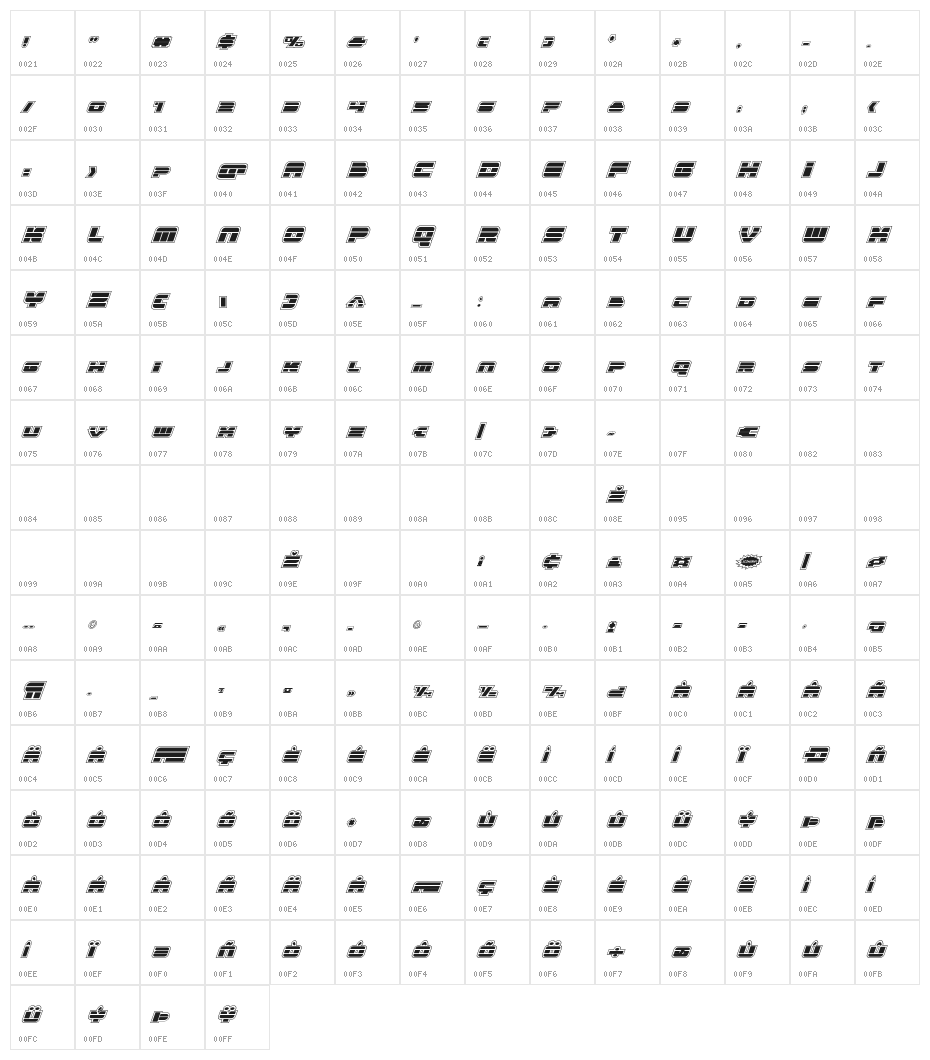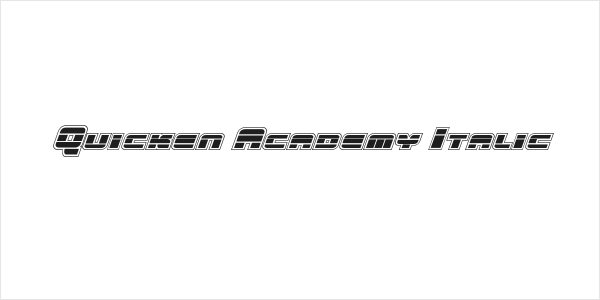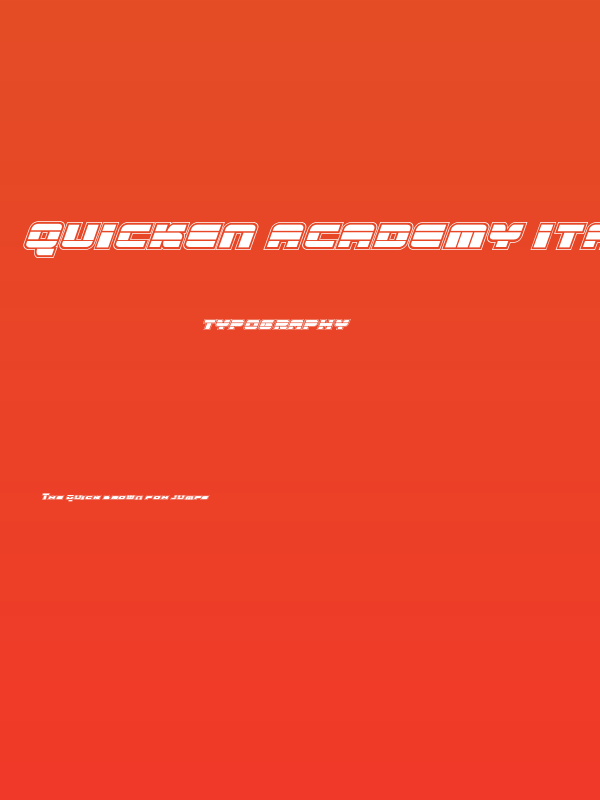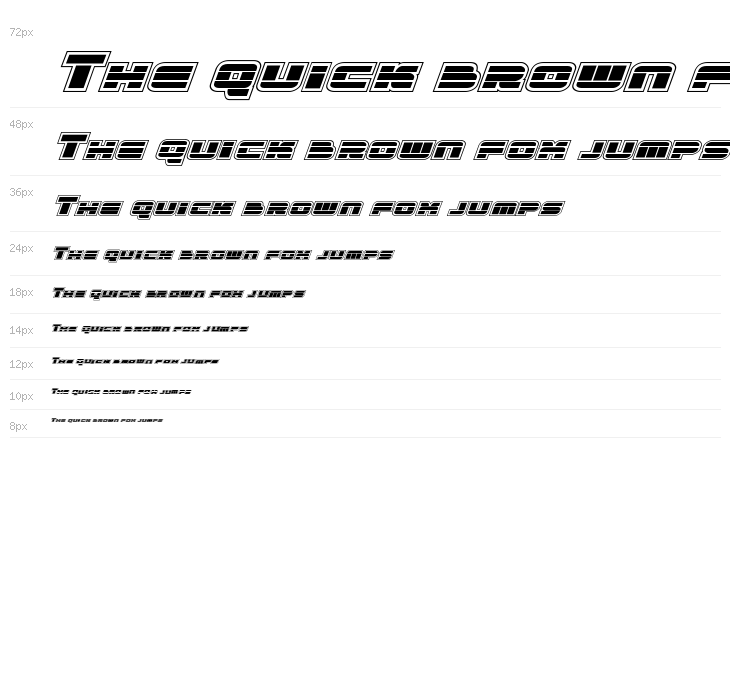
Quicken Academy Italic Font
Quicken Academy Italic Description
This font features a bold, futuristic design with a distinct italic slant. The characters are outlined with a double line, creating a layered effect that adds depth and dimension. The geometric shapes and sharp angles give it a modern, tech-inspired appearance. Each letter and number is crafted with precision, maintaining a consistent style throughout. The special characters are uniquely styled to match the overall aesthetic, making this font suitable for projects that require a standout, contemporary look.
| Proposed Projects | Ideal for tech branding, sci-fi themed designs, video game titles, and modern advertising. |